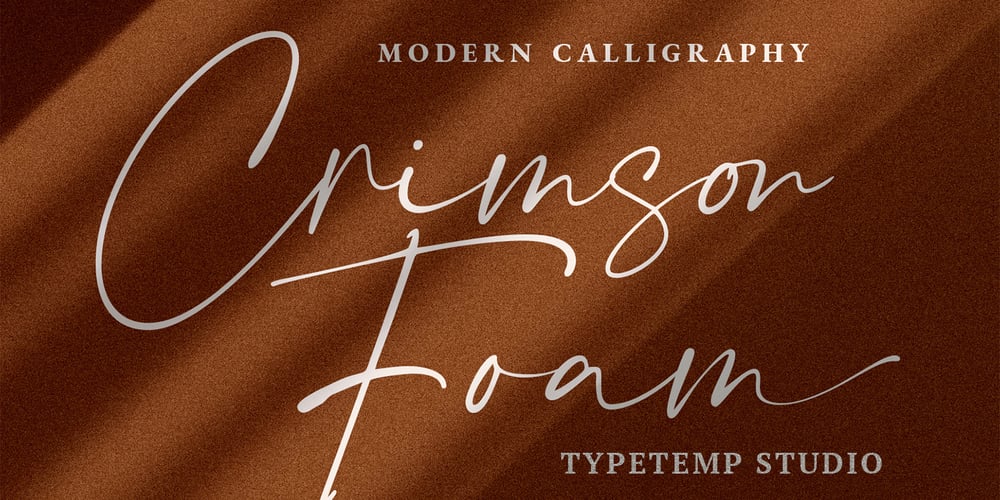
Crimson Foam Font Family was designed by Haris Purnama Putra, Egi Ahmad Mufid and published by Typetemp Studio. Crimson Foam contains 1 styles and family package options. Crimson Foam // Chic Stylish. is a beautiful chic script that is suitable for branding, weddings, social media, product design, stationery, advertising other romantic projects. anything.Features : Basic Latin A-Z and a-z Alternate Numbers Symbols Ligature Kerning We have also added 30 style character binders (letter combinations) that have been built (see preview above) to make this font very beautiful.To enable the OpenType Stylistic alternates, you need a program that supports OpenType features such as Adobe Illustrator CS, Adobe Indesign & CorelDraw X6-X7.There are additional ways to access alternates/swashes, using Character Map (Windows), Nexus Font (Windows), Font Book (Mac) or a software program such as PopChar (for Windows and Mac).Thanks and have a wonderful day,